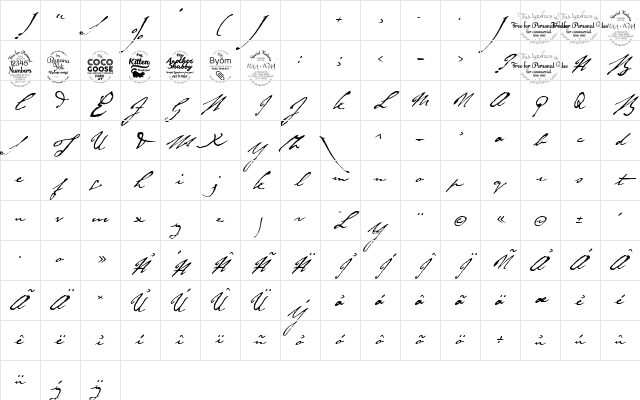
Byron Regular
Foundry: studio Kmzero
Designer: Cosimo Lorenzo Pancini after Lord Byron
Design Context for Byron
Byron is a composed and adaptable typeface that performs quietly and consistently across a wide range of design contexts.